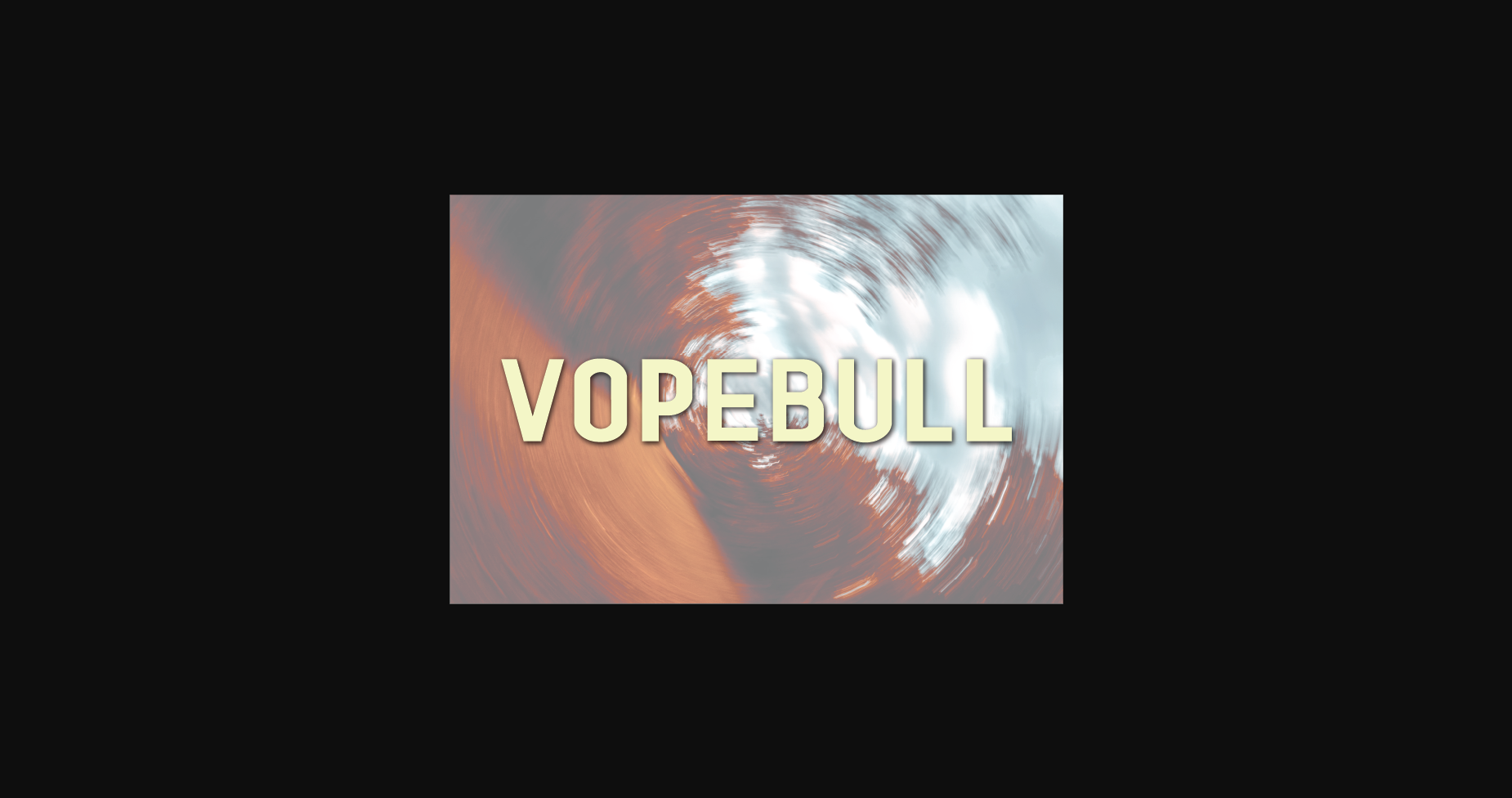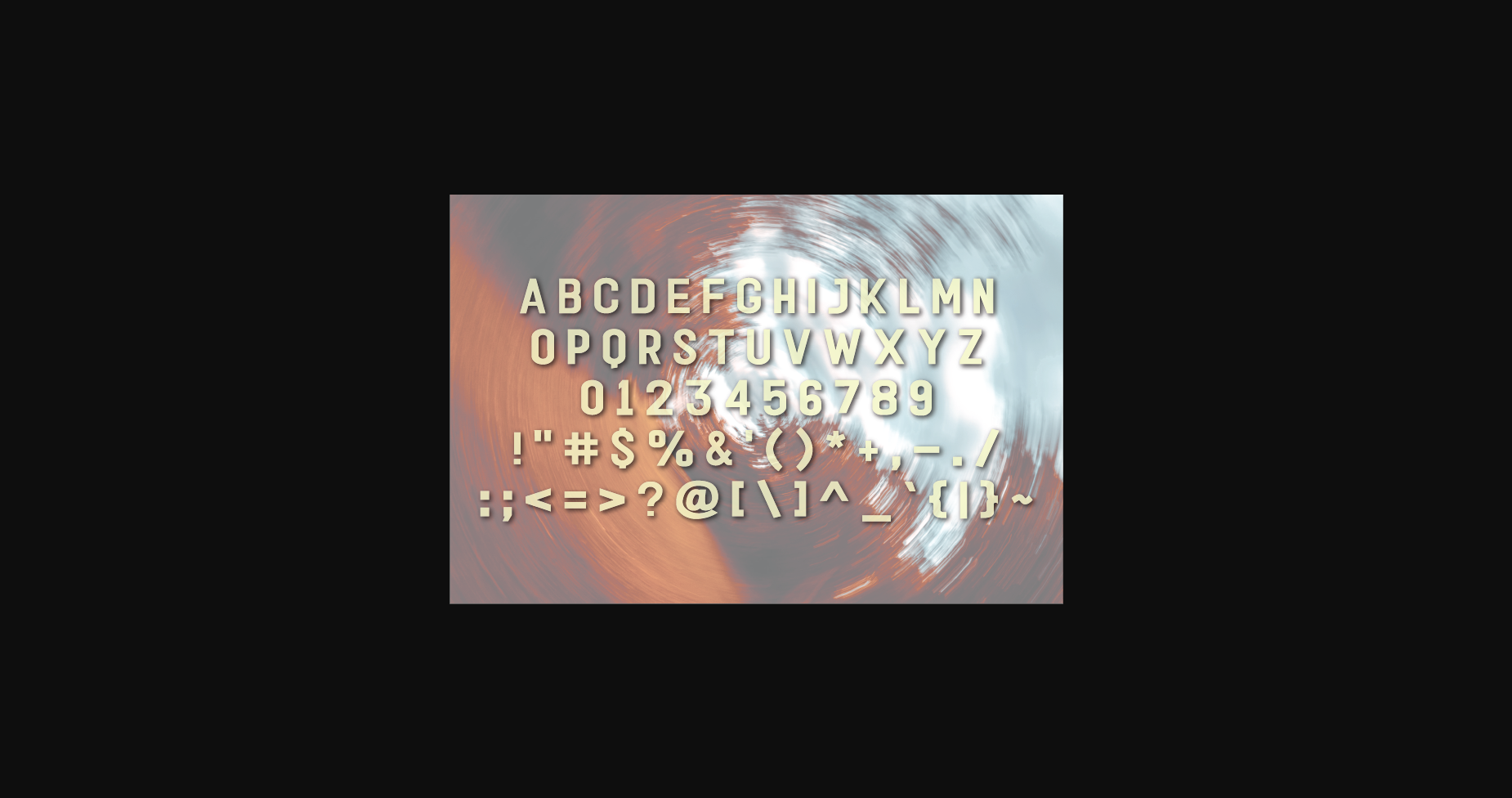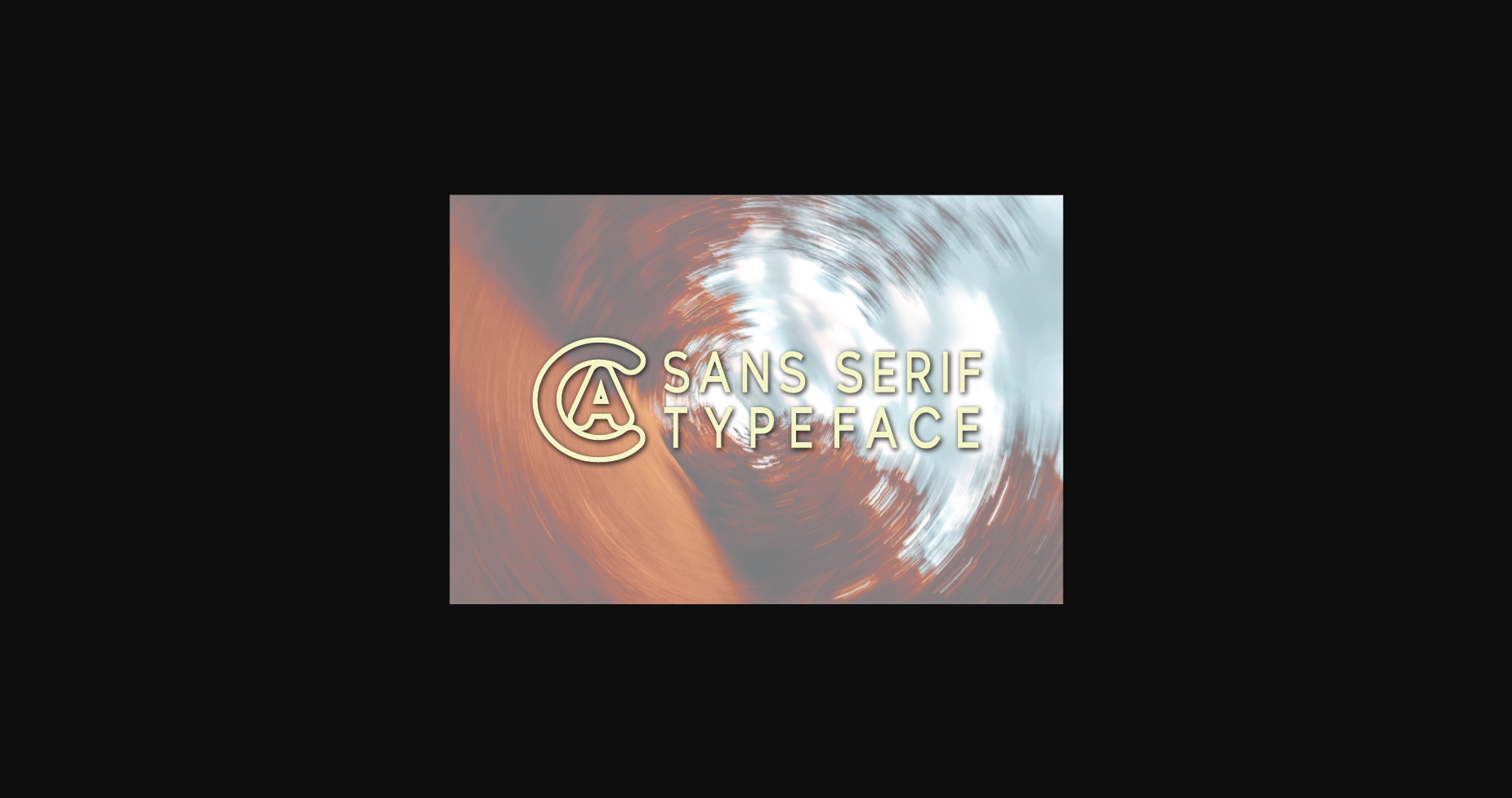
About Vopebull Font
Introducing Vopebull, a modern and classy sans serif typeface.
An extremely versatile font, perfect for logos, weddings, invitations, quotes, advertisements, print, magazines, and more!